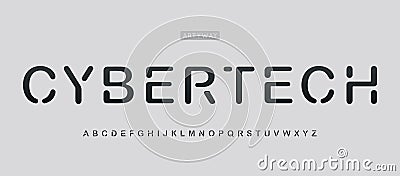
Stencil cyber tech alphabet, modern futuristic font for cybersecurity, software development, gaming, robotics #359694367
Stencil cyber tech alphabet, modern futuristic font for cybersecurity, software development, gaming, robotics, blockchain, fintech, electronics, branding, UI UX design, sci-fi. Vector typeset.